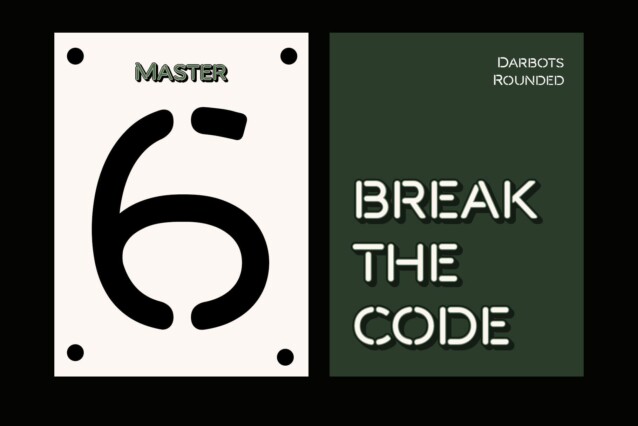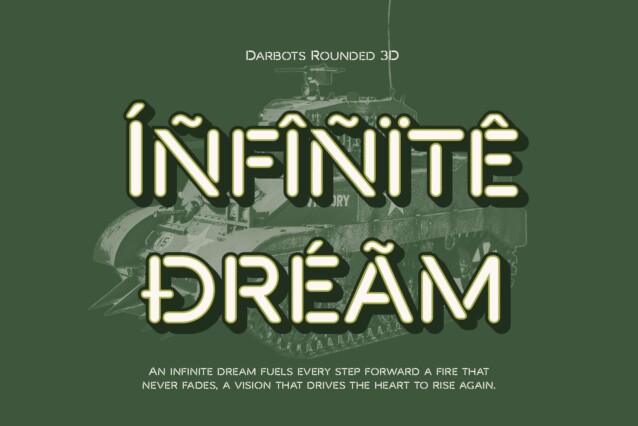
Darbots Rounded 3D Font
Darbots Rounded 3D Font  is a modern sans-serif display font that combines a clean stencil structure with rounded terminals and a bold 3D effect. It brings together precision, friendliness, and futuristic flair—making it ideal for standout design projects that need to look innovative and approachable.